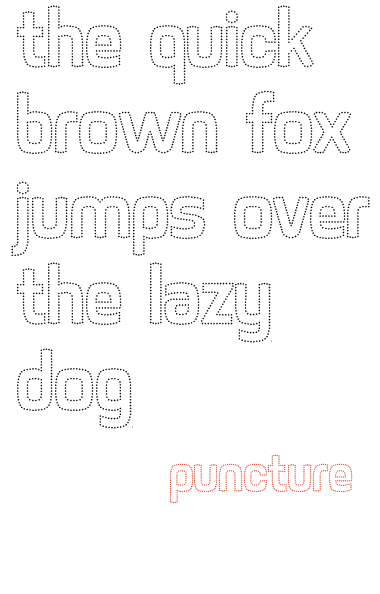
• something i've been working on recently. i'm still looking for a solution to virtually increase my screen resolution, so i would have more grid space. i don't know if the line strength is consistent and i propably won't start with the capital letters until then. anyway i thought i might as well throw this in to see what you guys think about it so far.
Gorgeous. The slight bulge of the characters is very appealing as are some of the connections such as in 'd'.
Schweet. All looks great to me.
Go on - do the rest, you know you'll feel complete. :-)
I may have to release my dot version that I've been sitting on since July 09.
Wow...this is awesome saberrider. Please keep going.
Wow! that's really nice! As others have said I love the soft "bulge" of the letters. Makes it look like it's not even modular!
The first word that came to mind was 'Gorgeous' ... then I saw that thalamic had said the same - so that's official, it's gorgeous :)
Fantastic.
Definitely perfect. I'm jealous...
Wow, nice!
very nice. love your use of the large grid. fearless and empowering. uc would be nice, but i sure everyone would settle for a little punctuation :)
It's simply gorgeous. 10/10
top of the pops
^^ Great One!
Beautiful work, keep it on!
fantastic. love it! it would be awesome if a solid version were possible with FontStruct.
A beauty, saber. If you wanted to get the most grid space, your best bet is to use the double sized filters in conjunction with the 4 quarter circles to create one dot. This densely packs each circle's placement on the grid, since each dot would cover a 4x4 grid area. But I think you knew that. I can't immediately tell by looking at the font preview.
It's so juicy! I love it! Please add some more characters! :D
Really, really nice font but I will love you even more, if you made it filled (like a normal font), if it is possible for you. Keep on with making fonts.
There's a stray dot on the bottom right of the lowercase g. Marvelous font, though! 10/10
Smashing Work. 11/10
Great Font. Another stray dot on the y too. See g y q p j just in case.
Junk brick on g.
add the rest of the latin supplement plz